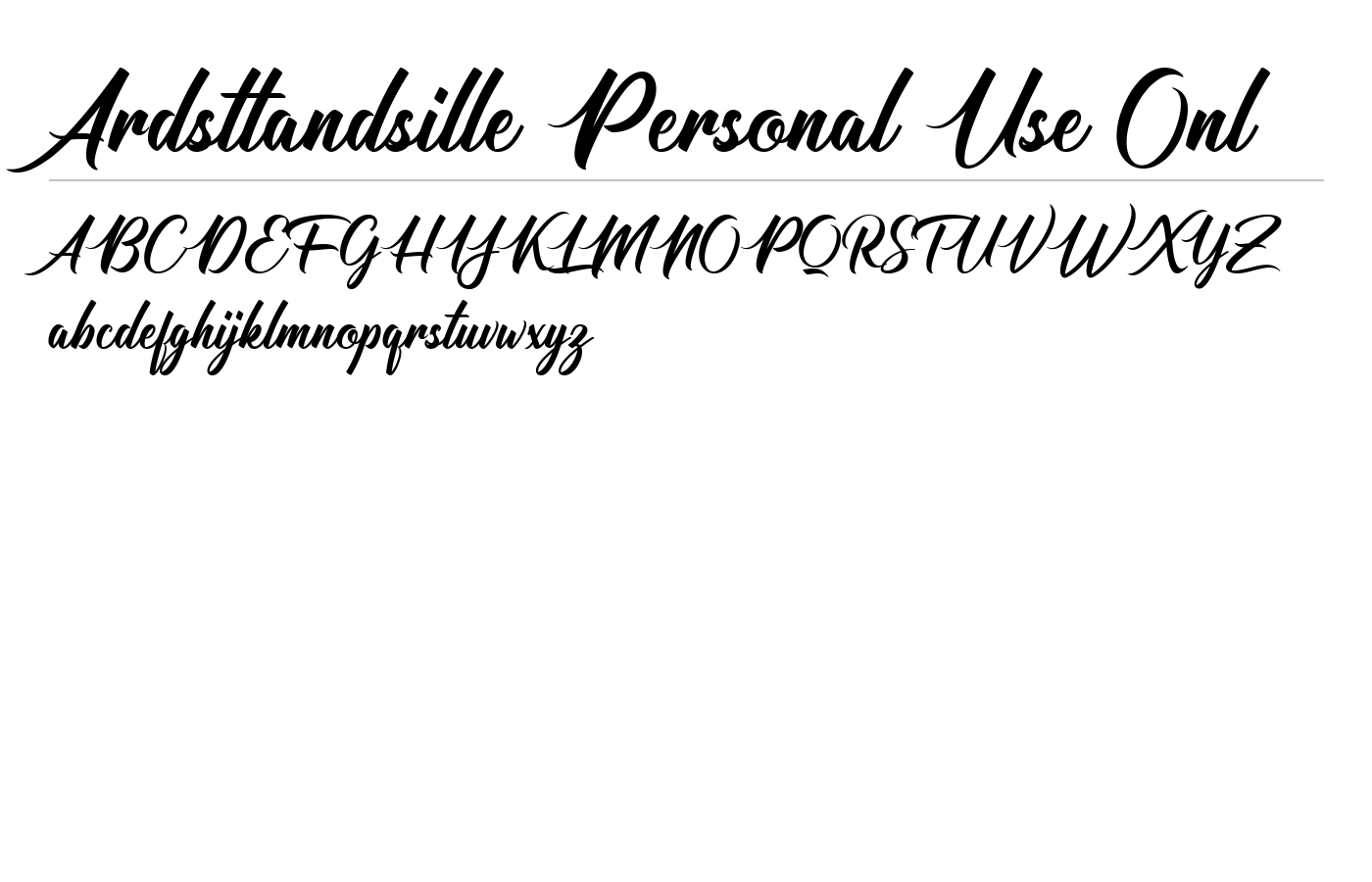
Ardsttandsille Personal Use Onl is a graceful script font with fluid, calligraphic strokes that evoke elegance and sophistication. Its moderately high x-height and smooth curves make it both readable and stylish, perfect for creative projects that need a personal, handcrafted touch. This font works beautifully for invitations, branding, and decorative headlines where a refined yet approachable feel is desired.
Ardsttandsille Personal Use Onl Font
About Ardsttandsille Personal Use Onl Font
| Font family | Ardsttandsille Personal Use Onl Font |
| Designer | Ahmad Rofingi |